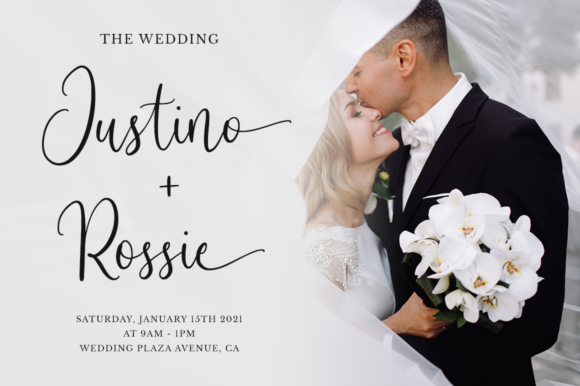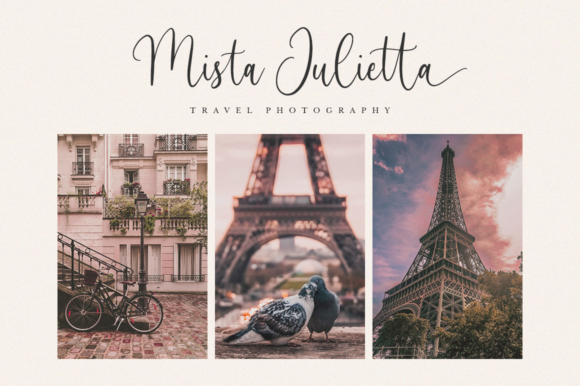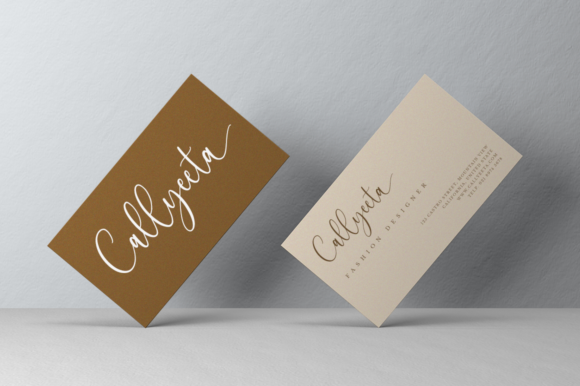
Bullvetti Font: Elegant Calligraphy Script for Wedding Invitations & Branding
About the Bullvetti Font
The wait is over! The incredible Bullvetti Font is now available for your design toolkit. Bullvetti is a ravishing, graceful and cursive handwritten font. It has beautiful and well balanced characters and as a result, it matches a wide pool of romantic designs.
Its elegant, flowing forms make Bullvetti ideal for projects requiring a touch of refined romance. Consider it for wedding invitations, stationery, or branding for luxury goods and beauty products. However, its cursive nature makes it less suitable for body text or UI elements where readability is paramount. Long blocks of text set in Bullvetti would be difficult to read.
Pairing Bullvetti effectively requires a contrasting typeface. A clean, geometric sans-serif like Montserrat would provide a strong counterpoint, offering readability for supporting text. Alternatively, a classic serif like Garamond would complement its romantic feel while maintaining clarity. Avoid pairing it with other script fonts, as this could create visual clutter.
Bullvetti’s overall personality is sophisticated and romantic, with a touch of timeless charm. Its graceful curves convey a sense of luxury and refinement, making it a versatile choice for projects where elegance is key.